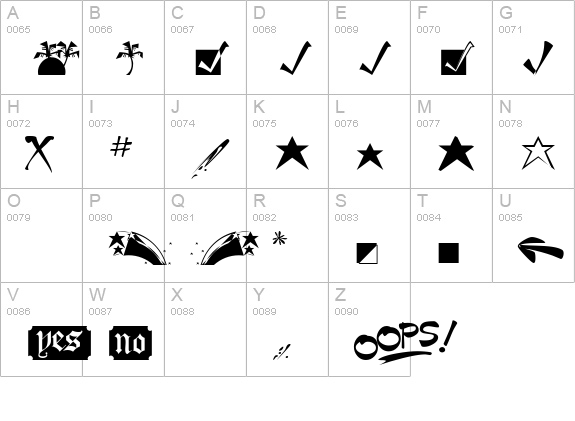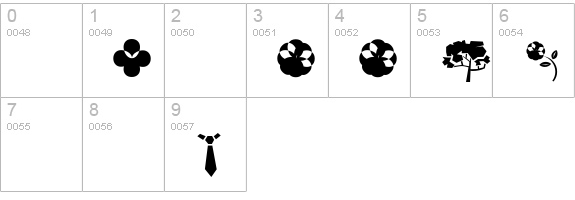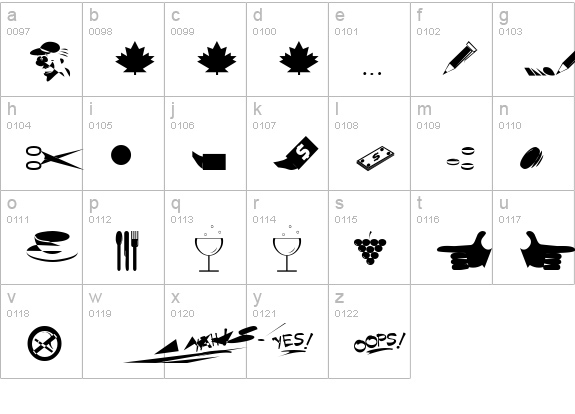
DoodleDingbatsFiveSSK Font Details
DoodleDingbatsFiveSSK font is a whimsical and playful typeface that is sure to add a touch of fun to any design project. This unique font features a collection of doodle-style dingbats that can be used to create eye-catching visuals and decorative elements. The characters in DoodleDingbatsFiveSSK font are quirky and charming, making them perfect for adding a touch of personality to invitations, greeting cards, posters, and more. Best of all, DoodleDingbatsFiveSSK font is available for free download at FontsMarket.com. This means that you can easily add this delightful font to your collection without spending a dime. Whether you're a designer looking to spice up your projects or simply someone who loves experimenting with different fonts, DoodleDingbatsFiveSSK is a fantastic choice that won't break the bank. Download it today and let your creativity run wild with this charming and free font!